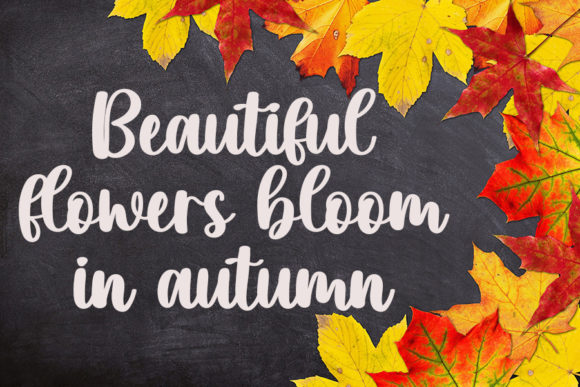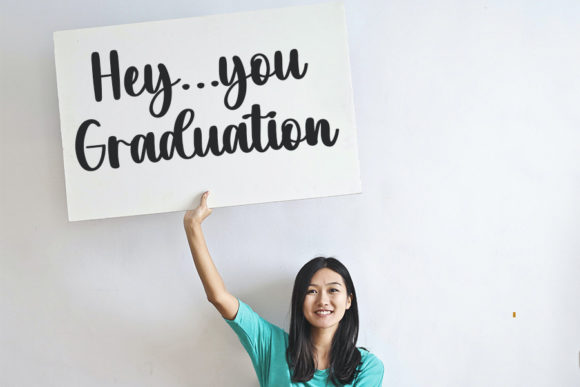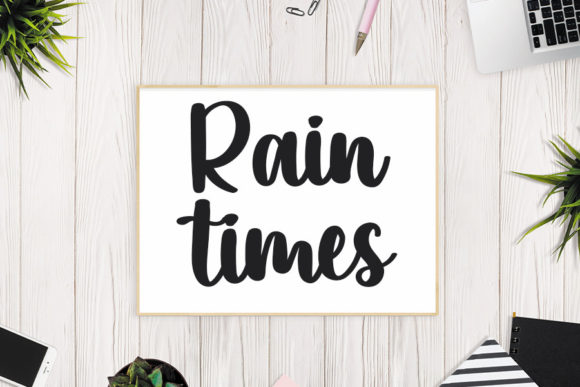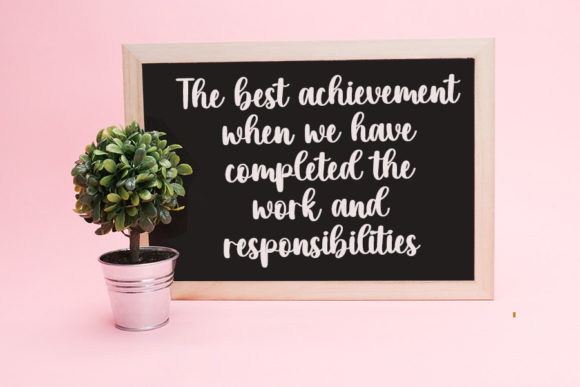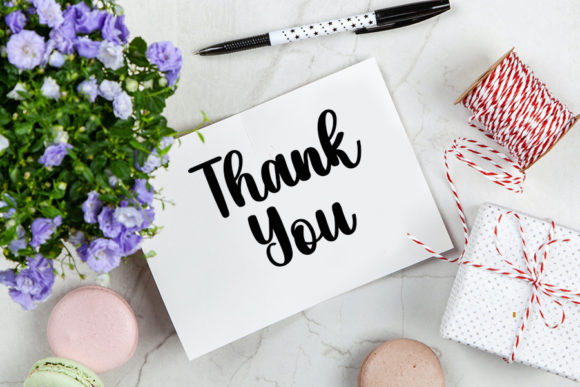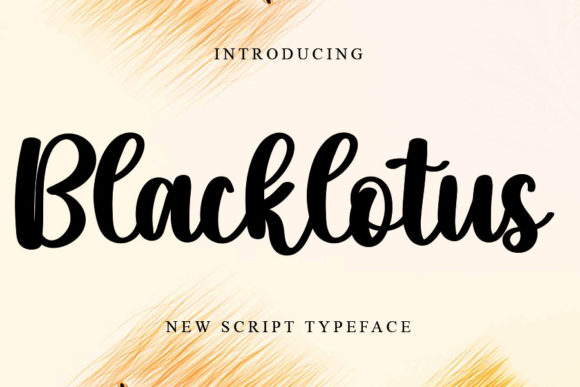
The Quest for the Perfect Font: Discovering Blacklotus
I’ll never forget the frustration of scrolling through font after font, searching for the perfect one to bring my design project to life. It was for a client’s wedding invitation, and I wanted something that exuded elegance and sophistication. That’s when I stumbled upon Blacklotus, a stylish handwritten font that instantly caught my eye. In this article, I’ll share my experience with Blacklotus, its features, and how to make the most of it in your designs.
A First Impression: What Makes Blacklotus Special
Blacklotus is a stylish handwritten font with a contemporary atmosphere and impeccable form, inspired by timeless classic calligraphy. It’s not too thin and not too thick, balanced and varied, making it perfect for enhancing the beauty of your projects. Here are some of the things I love about Blacklotus:
- ✨ Balanced and versatile: Blacklotus strikes the perfect balance between modernity and classic elegance, making it suitable for a wide range of design projects.
- ✅ Impeccable form: The font’s attention to detail and precise craftsmanship are evident in its beautiful letterforms.
- 💫 Contemporary atmosphere: Blacklotus has a fresh and modern feel that will elevate your designs and make them stand out.
While Blacklotus is an excellent font, it’s not without its quirks. Here are a few things to keep in mind:
- 🤔 Limited use in body text: Due to its elegant and cursive nature, Blacklotus might not be the best choice for long-form body text. It’s better suited for headings, titles, and short paragraphs.
- ⚠️ Requires attention to spacing: As with any script font, Blacklotus requires careful attention to spacing to ensure it looks its best. You may need to adjust the tracking and kerning to achieve the desired effect.
The Story Behind Blacklotus
Blacklotus was designed with the goal of creating a font that would bring a touch of elegance and sophistication to any design project. Inspired by timeless classic calligraphy, the font’s creator aimed to craft a beautiful and versatile font that would be suitable for a wide range of applications.
| Font Name | Blacklotus Font |
| What is Blacklotus? | Blacklotus is a stylish handwritten font with a contemporary atmosphere and impeccable form, inspired by timeless classic calligraphy. |
| Is Blacklotus suitable for body text? | No, Blacklotus is better suited for headings, titles, and short paragraphs due to its elegant and cursive nature. |
| Is Blacklotus easy to read? | Yes, Blacklotus is designed to be legible and easy to read, making it perfect for designs where clarity is important. |